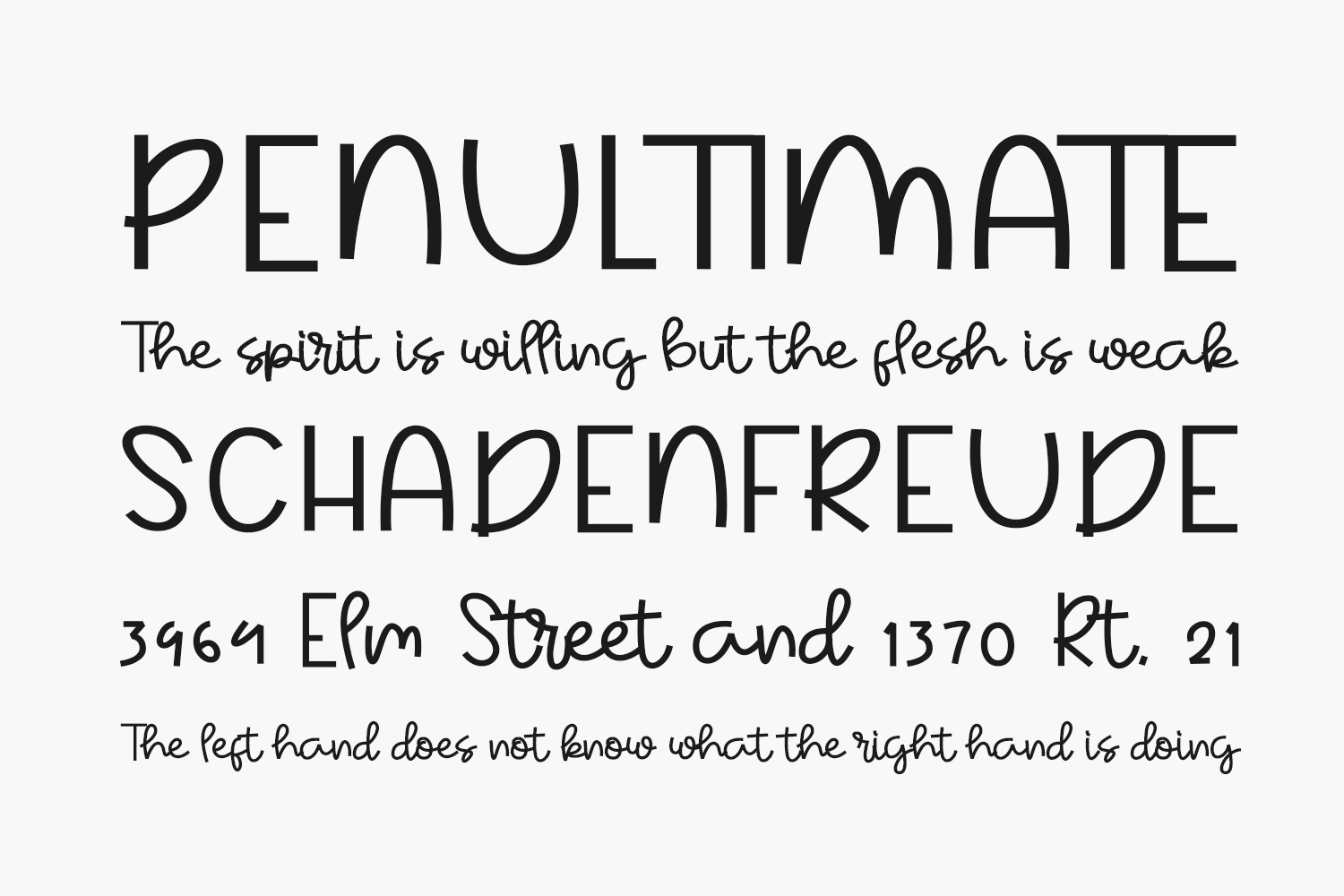
Rainbow Cake Free Font is a cute, quirky, and fun handwritten font. Whether you use it for cartoon related designs, children’s games or just any creation that requires a lovely touch, this font will be an amazing choice. Rainbow Cake Free Font was designed by ONG Type and is free for personal use only. Please purchase the full version for commercial use.